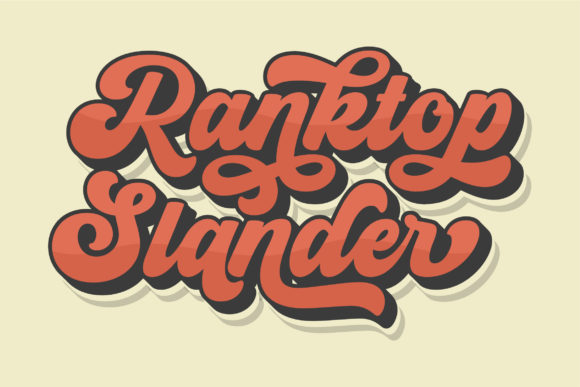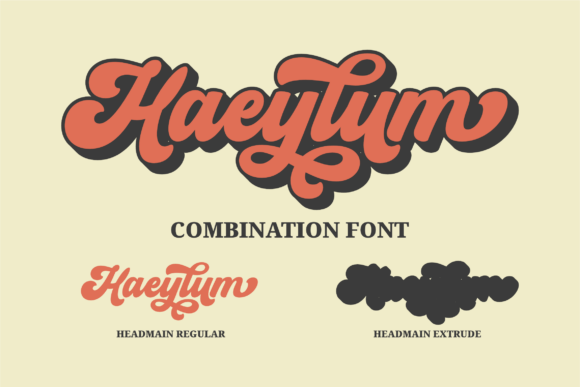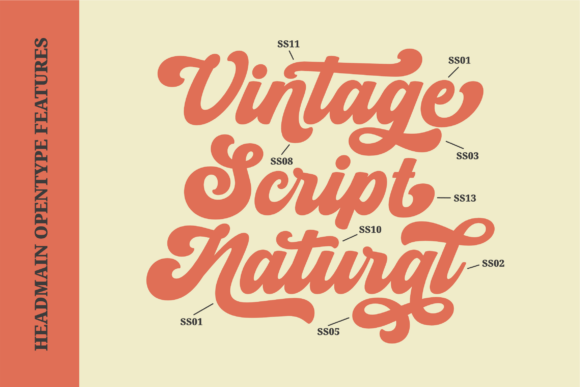
Introduction to Headmain Font
Headmain Script is a bold and dynamic layered script font with a strong retro vibe.
Its fluid curves and thick strokes create a striking and energetic look, making it perfect for eye-catching headlines, branding, posters, and vintage-inspired designs With multiple alternates and OpenType features, Headmain Script offers versatility and customization, allowing you to craft unique and expressive typography.
Key Features of Headmain Font